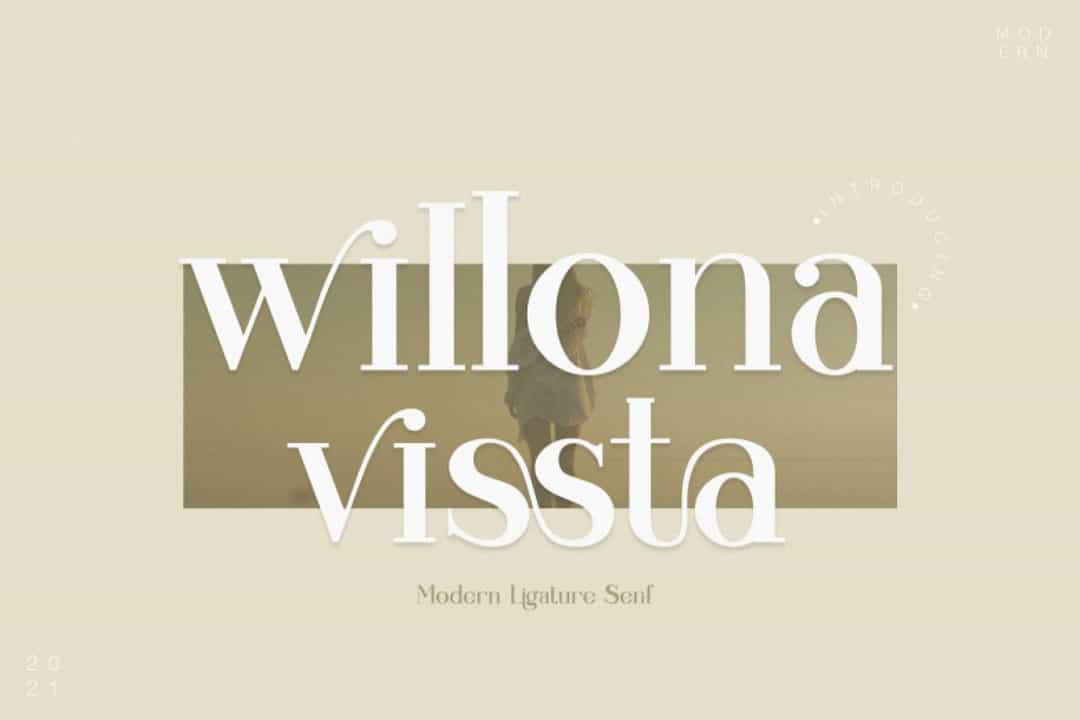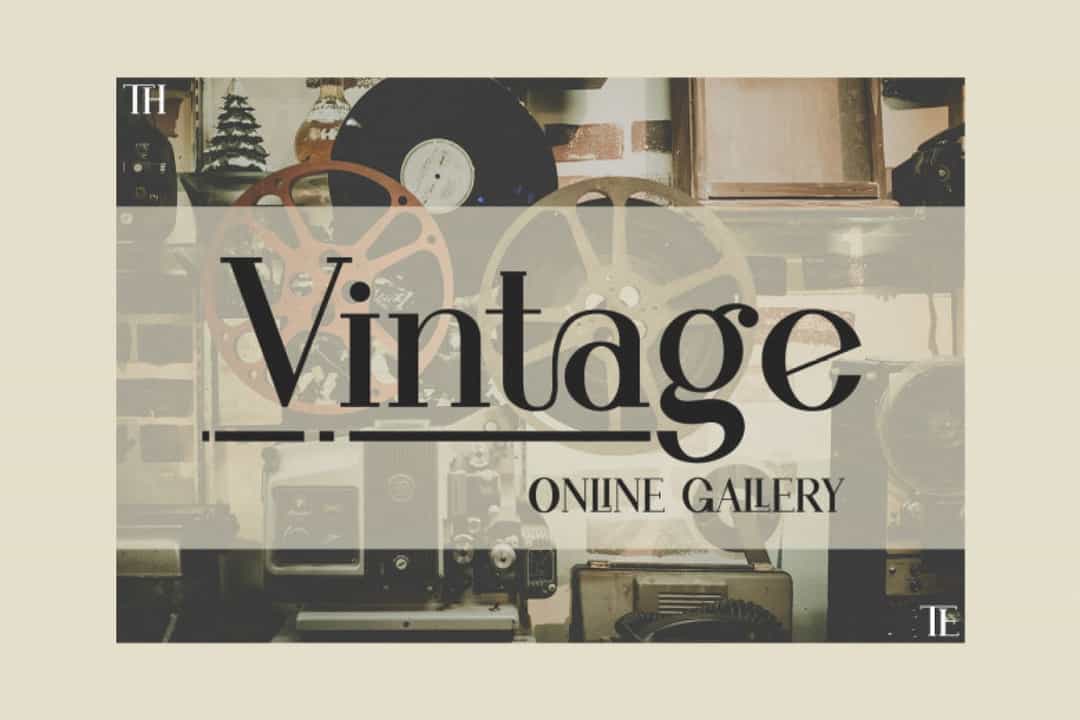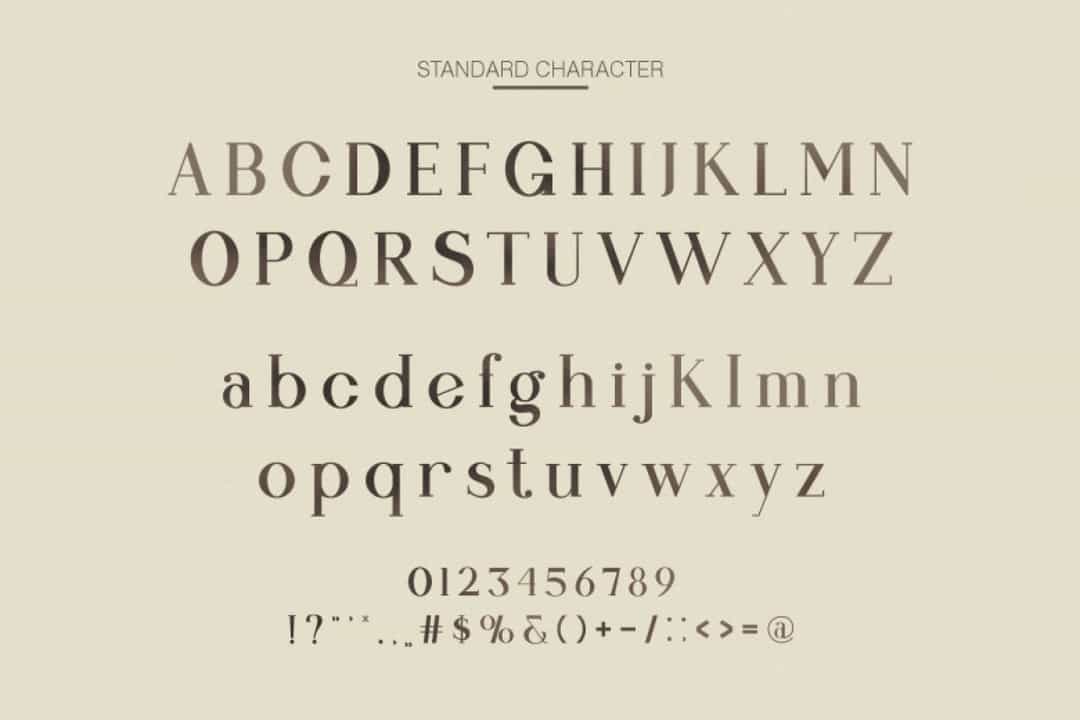
Willona Vissta It is an elegant and sophisticated serif font. Both nostalgic and modern in design, Willona Vissta It makes a striking appearance and can be used for magazines, logos, social media websites or websites with layout needs requiring elegance, chic style and chic modern designs – perfect for magazines!